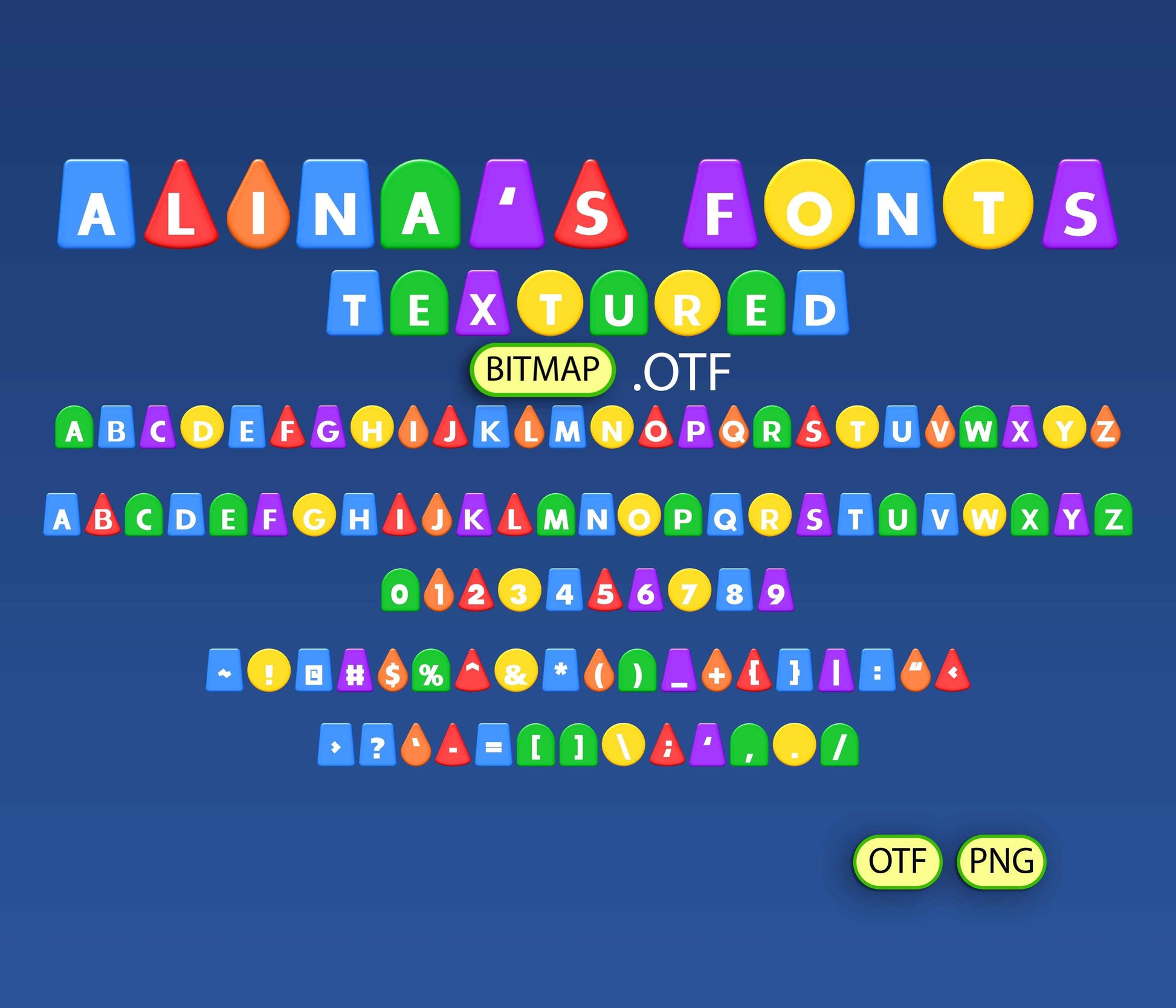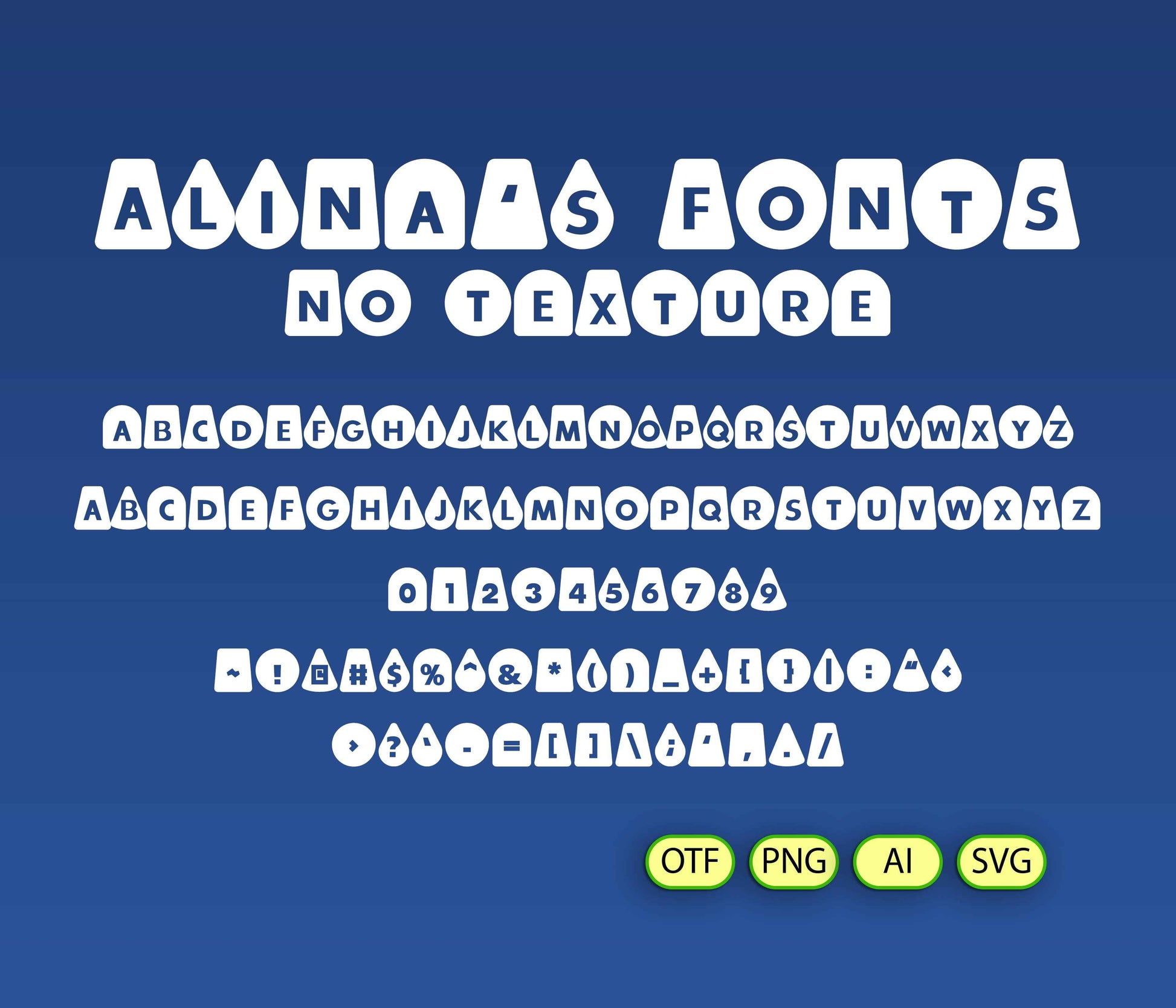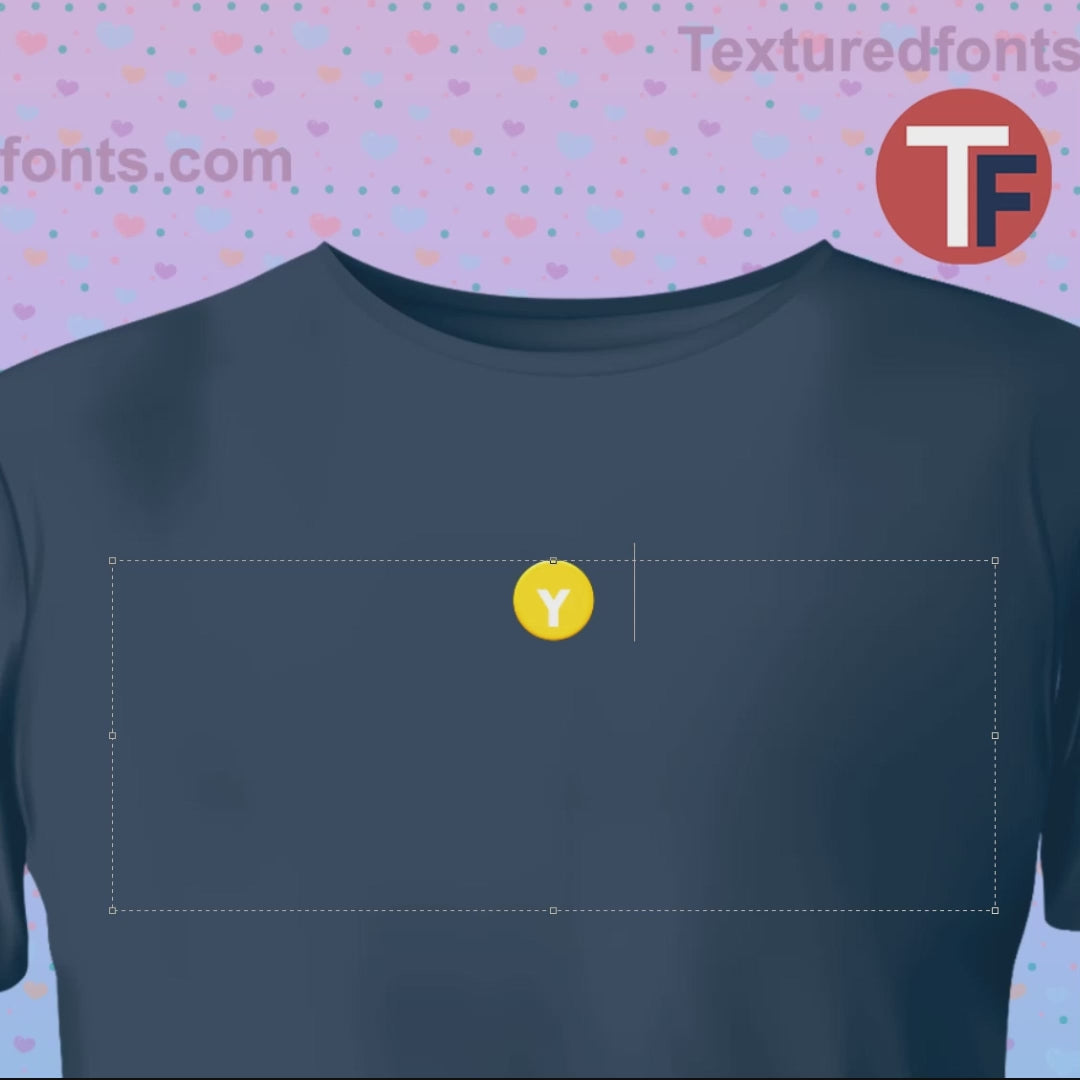
ColorBlox Font Textured
Bring Vibrancy to Your Designs with the ColorBlox Font
Elevate your creative projects with the ColorBlox font, designed to inject a bold and vibrant aesthetic into your work. Ideal for artists, graphic designers, and anyone looking to make a visual impact, this font captures the essence of color and creativity with its distinct, block-style characters. Whether you're crafting engaging advertisements, designing educational materials, or adding flair to personal projects, the ColorBlox font ensures your designs are both eye-catching and effective.
The ColorBlox font features a modern, geometric design with clean, sharp lines that resemble the dynamic interplay of building blocks. This playful yet sophisticated style is perfect for a variety of applications:
Understanding the need for versatility in font usage, our ColorBlox font includes both textured and non-textured variants to accommodate various design needs. The non-textured version is particularly beneficial for ensuring broad compatibility with all types of software, including Canva. This version allows for smooth, clean text display that is essential for professional-quality design work, making it accessible for both amateur and professional designers.
Our ColorBlox font is not just a tool for text; it's a way to bring a burst of energy and creativity to every design. With its bold colors and engaging style, this font is perfect for anyone looking to convey messages with vibrancy and flair. Ready to make your projects pop with color? The ColorBlox font is your go-to for transforming ordinary designs into extraordinary creations.